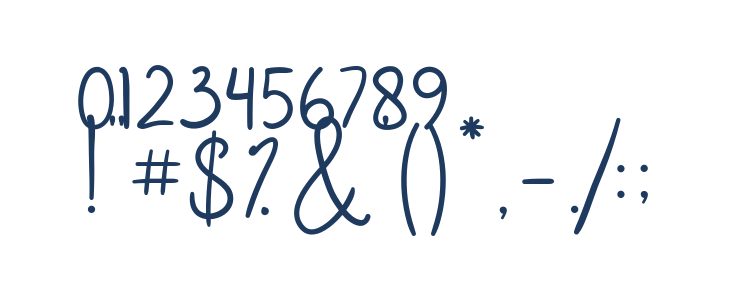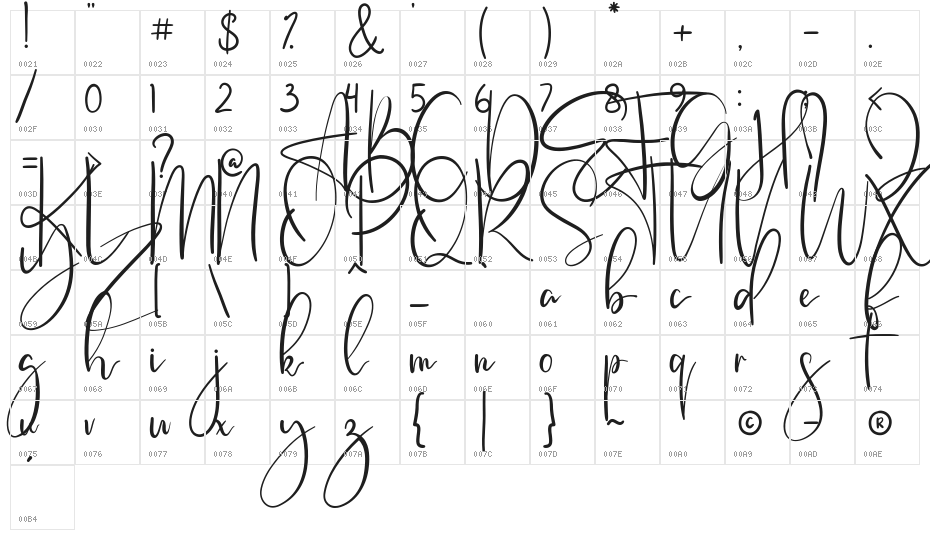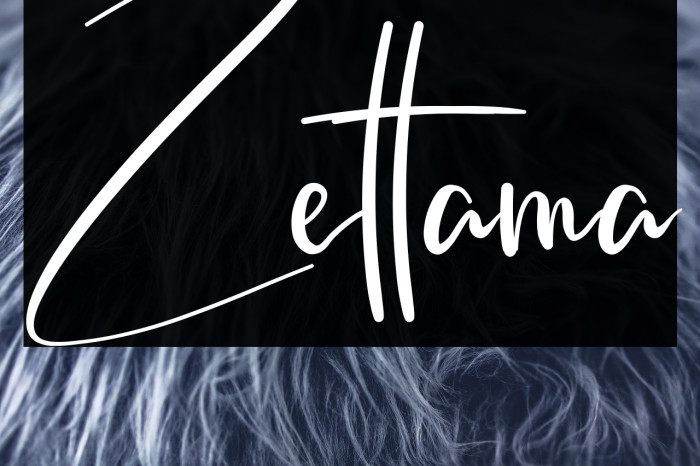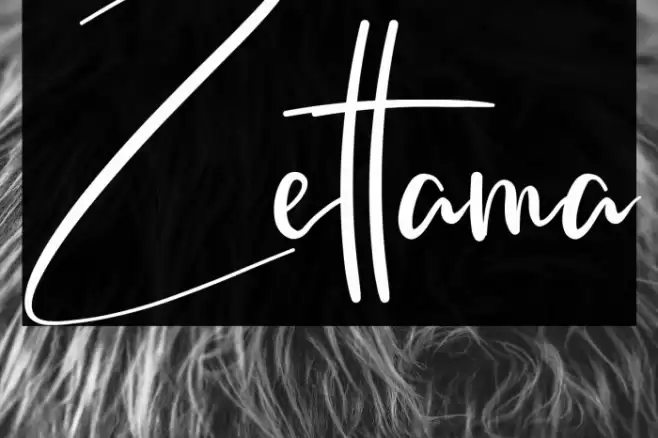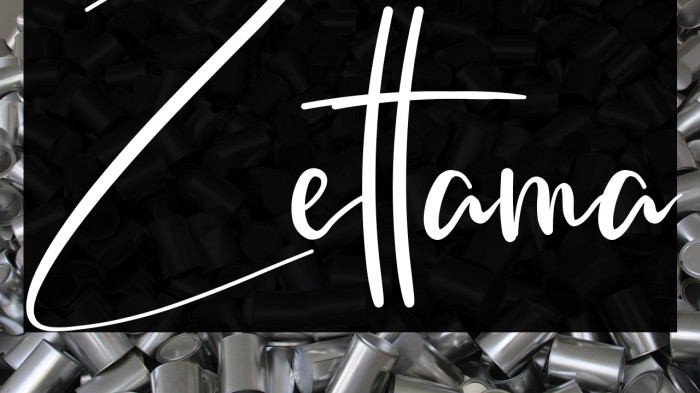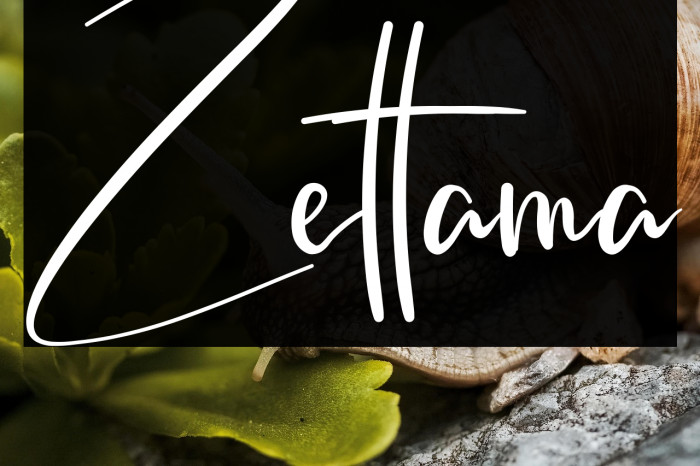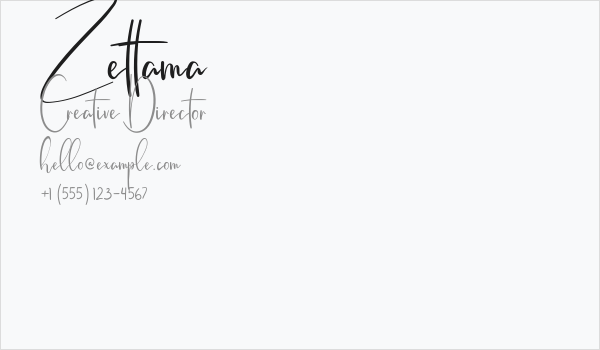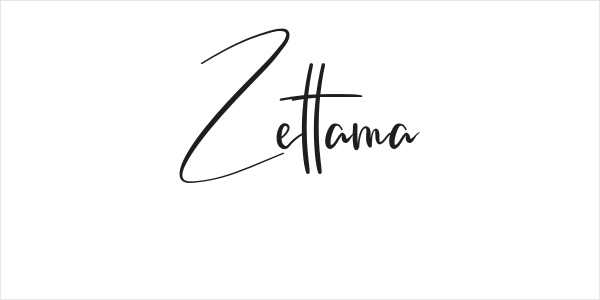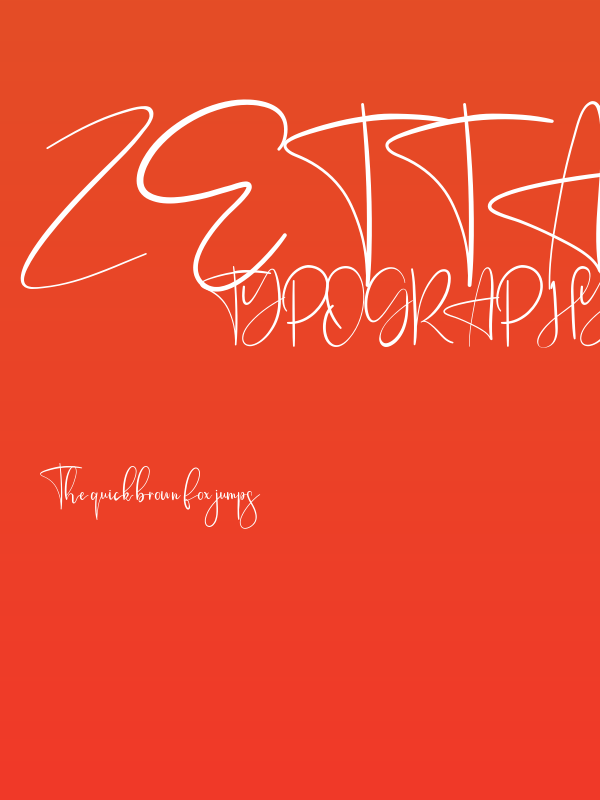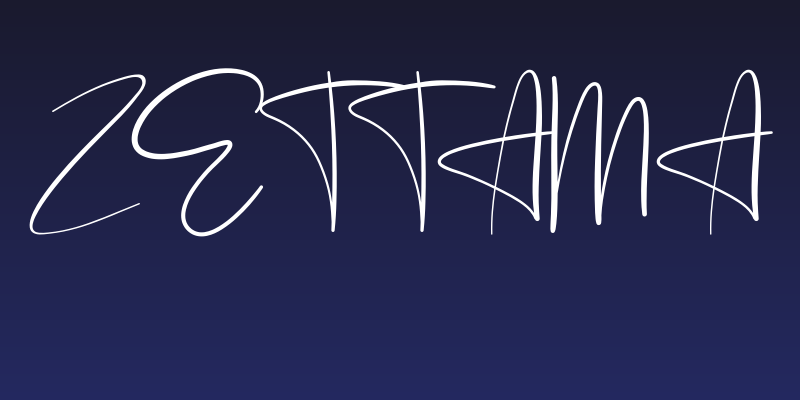
Zettama Font
Zettama Description
This font features a dynamic and expressive handwritten style, characterized by its fluid and continuous strokes. The uppercase letters are tall and slender, with a playful yet elegant flair, while the lowercase letters maintain a consistent flow, enhancing readability. The numbers are bold and slightly rounded, providing a harmonious balance with the letters. Special characters are crafted with the same attention to detail, ensuring they integrate seamlessly with the rest of the font. This font's unique style makes it suitable for creative projects that require a personal touch.
Use CaseLogos, Headlines, Invitations
Proposed ProjectsIdeal for wedding invitations, personal branding, greeting cards, and artistic posters.